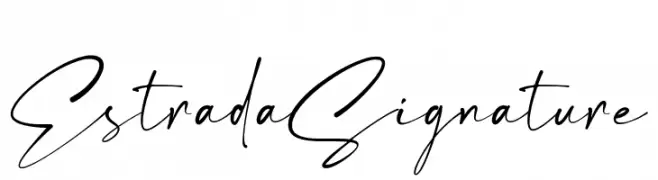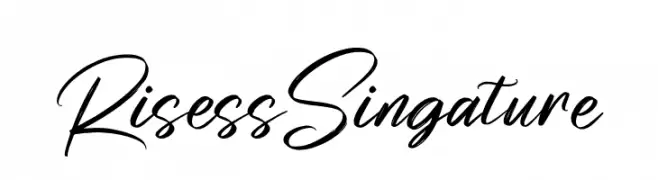
A graceful, cursive script font with a natural handwritten style.
A bold, textured font with a rugged, vintage style.
A sophisticated and elegant handwritten font with fluid strokes.
A fluid, handwritten-style font with a personal and artistic flair.
A modern, cursive handwritten font with elegant, flowing characters.
A sleek, modern italic font with a light and airy design.
A playful, hand-drawn font with bold, irregular characters and a whimsical touch.
A sophisticated cursive script font with a signature-like flow and dynamic strokes.
A playful and elegant handwritten font with flowing, interconnected letterforms.
Elegant cursive font with a handwritten signature style.